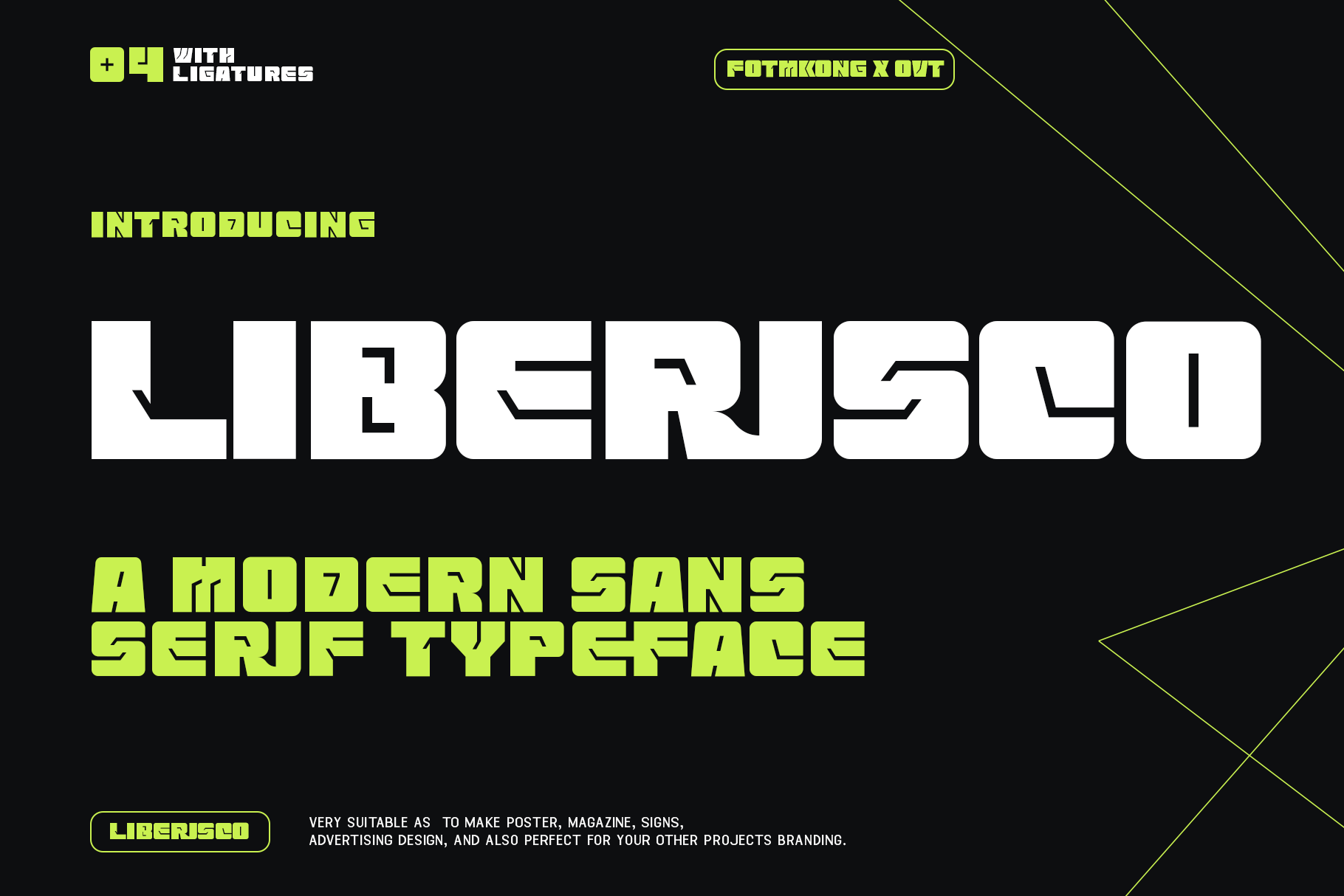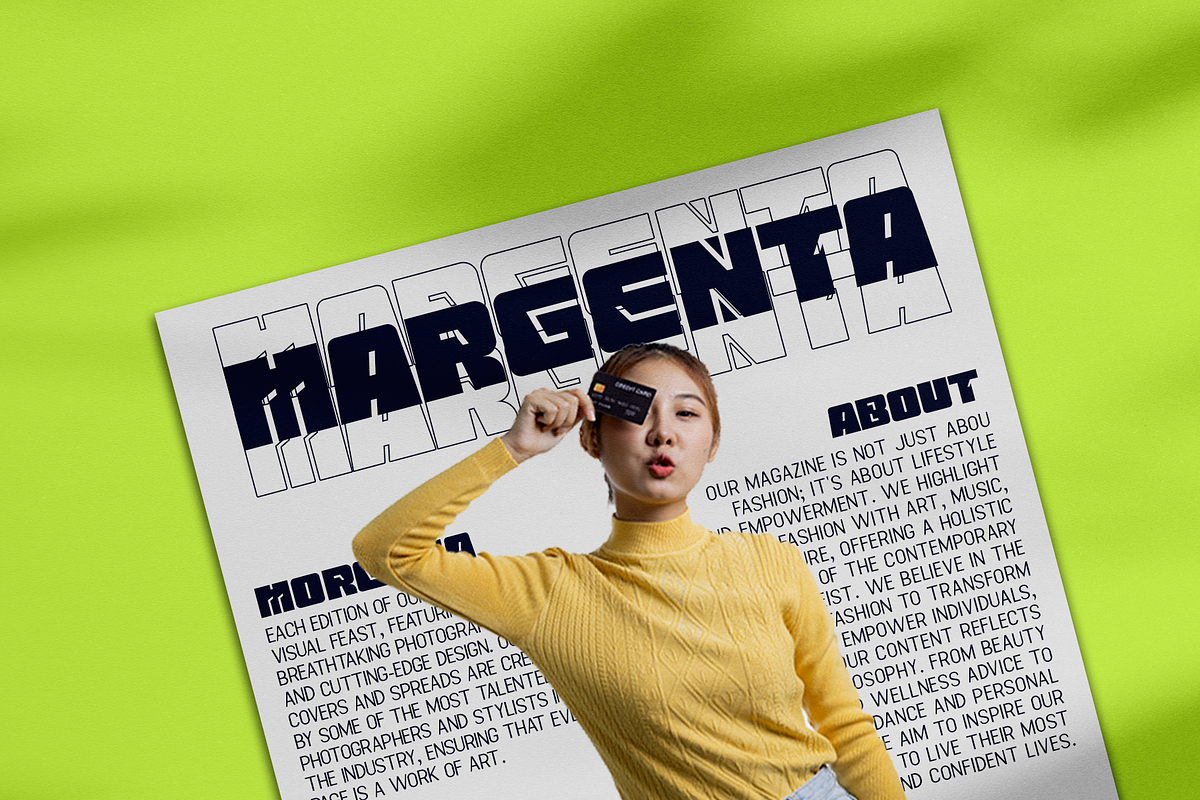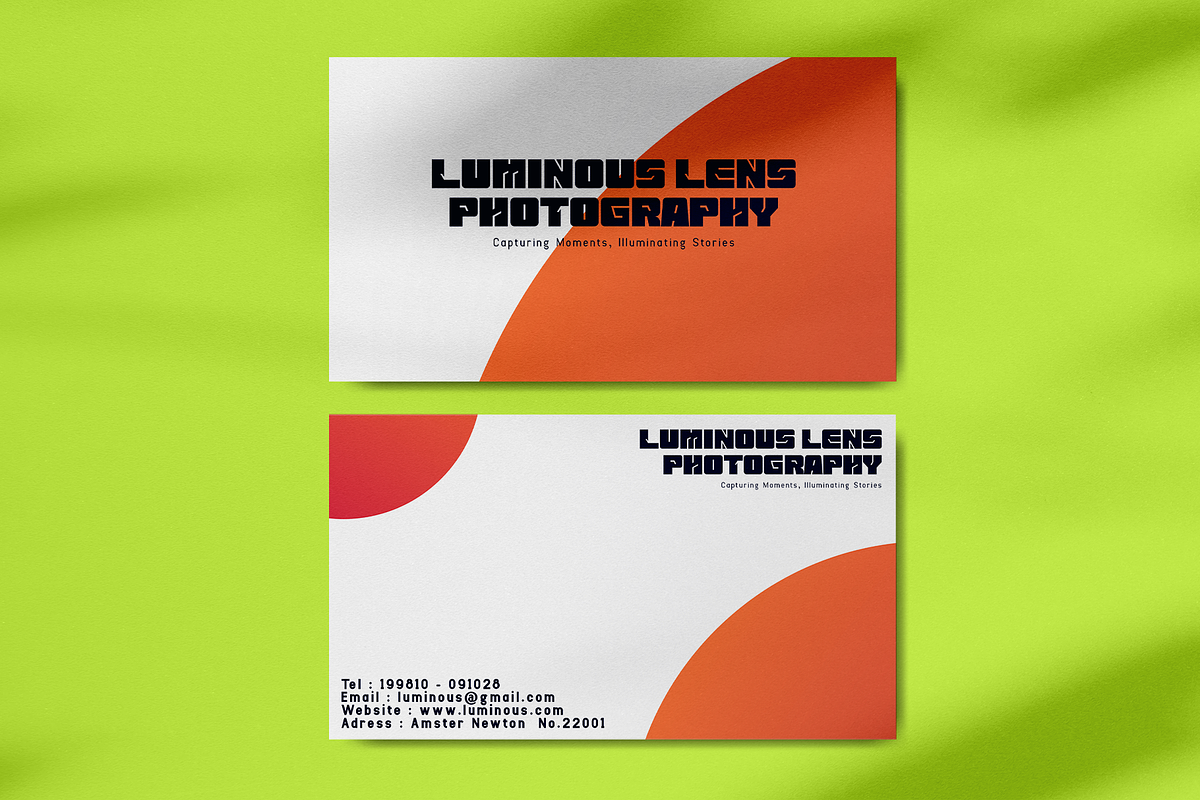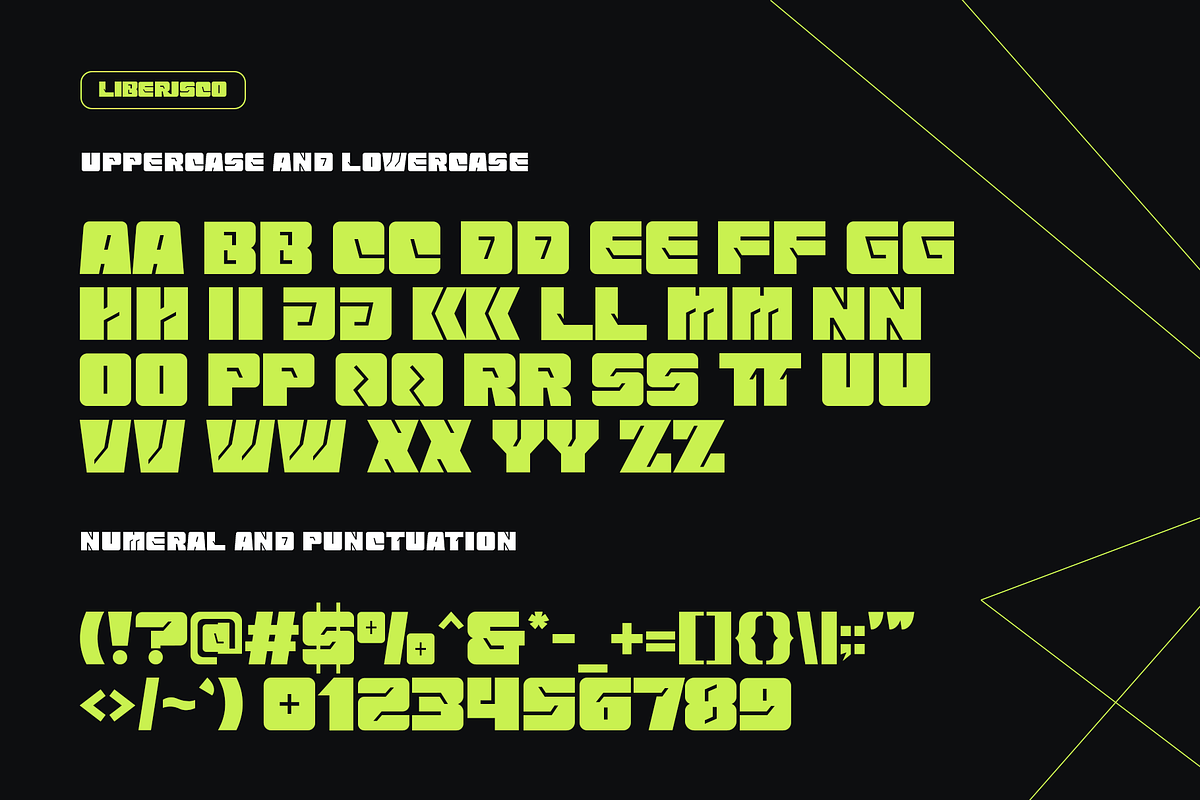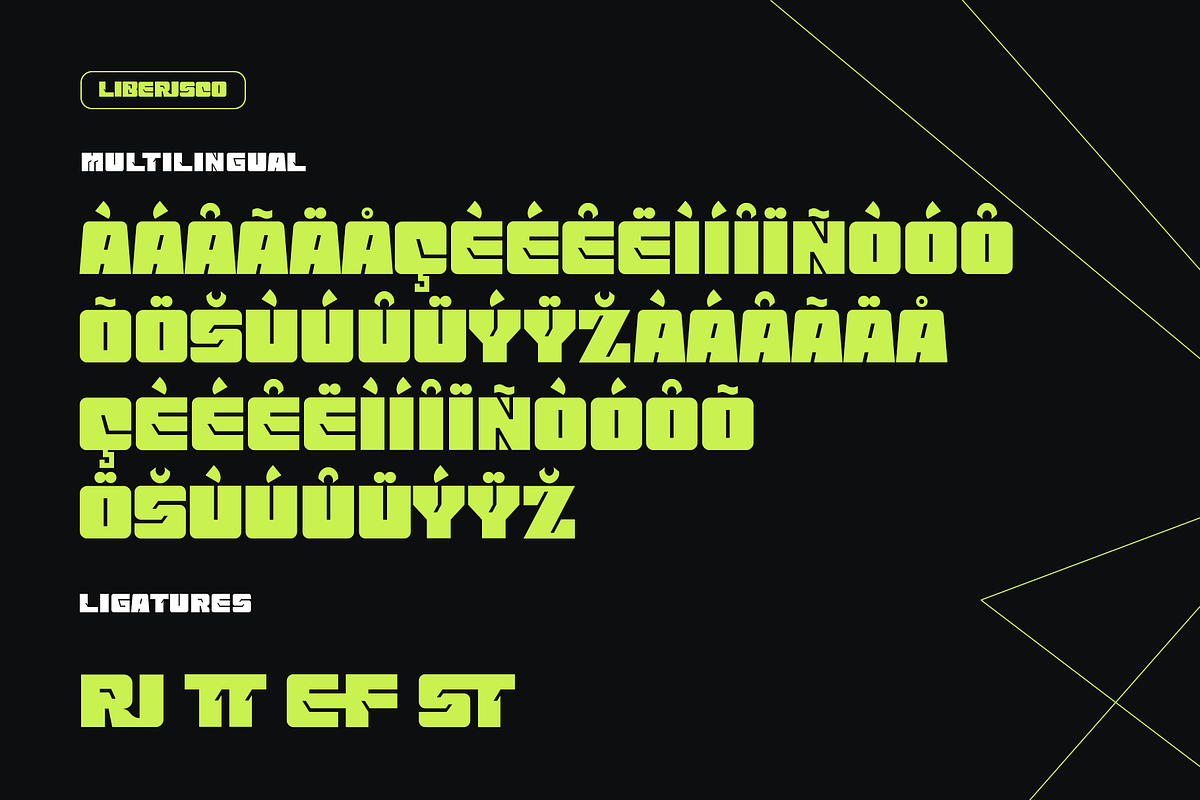
Liberisco-Modern Sans Serif Typeface
Liberisco - Modern Sans Serif Typeface
Meet "Liberisco," a modern sans serif typeface designed to bring a refined and contemporary edge to your creative projects. This versatile font family is perfect for a variety of design needs, from sleek corporate branding to stylish editorial layouts.
"Liberisco" boasts a full set of uppercase and lowercase letters, numerals, punctuation, and multilingual support, ensuring you have all the characters you need for a cohesive and professional look. Its clean lines and balanced letterforms make it an ideal choice for both print and digital applications, including logos, headlines, body text, websites, and advertising.
The modern aesthetics of "Liberisco" are complemented by subtle unique touches that give it personality without compromising readability. This font family offers multiple weights, providing flexibility and adaptability to suit different design contexts and preferences.
"Liberisco" is your go-to typeface for adding a touch of modern sophistication to your work.